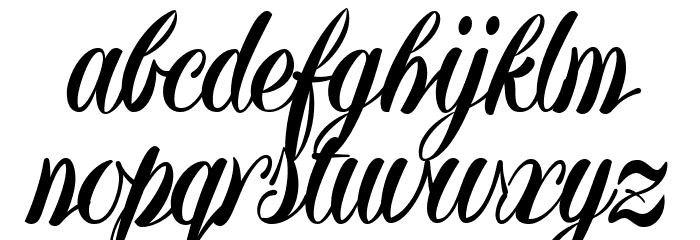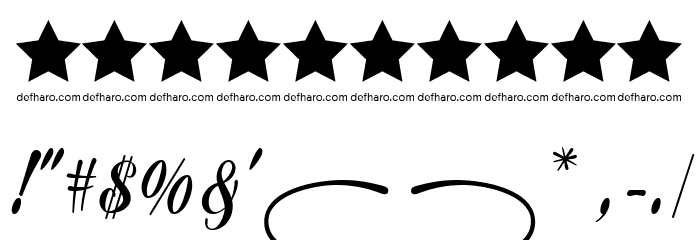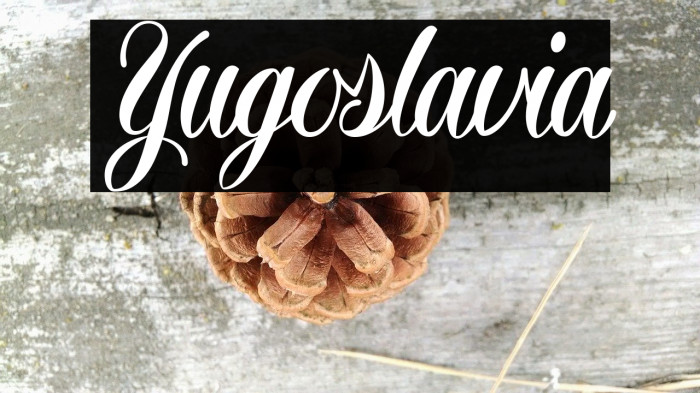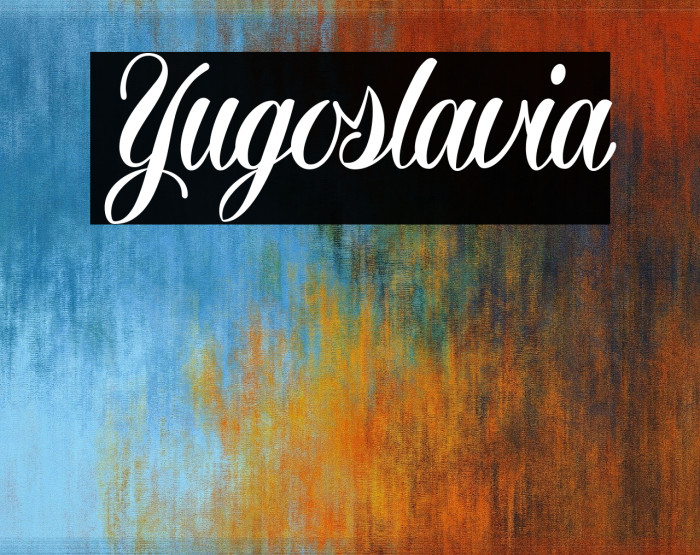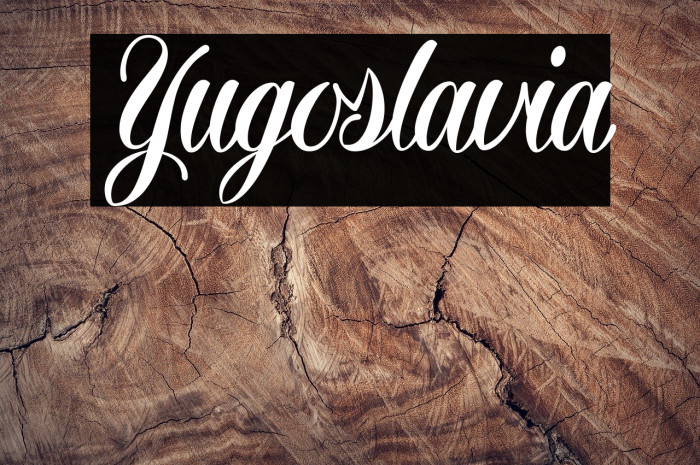
Yugoslavia Font
This font features an elegant and flowing script style, characterized by its smooth and continuous strokes. The uppercase letters exhibit a sophisticated flair with intricate loops and swashes, while the lowercase letters maintain a consistent cursive form. The overall design is reminiscent of traditional calligraphy, offering a sense of grace and fluidity. The numerals and special characters are crafted with the same attention to detail, ensuring a cohesive appearance across all glyphs. This font's aesthetic is both timeless and versatile, making it suitable for a variety of design applications.
An elegant and flowing script font with a calligraphic style.
- Proposed Projects: Ideal for wedding invitations, elegant branding, greeting cards, and decorative headlines.
- Category: Script
- Overall Style: Classic
- Use Case: Headlines, Logos, Invitations